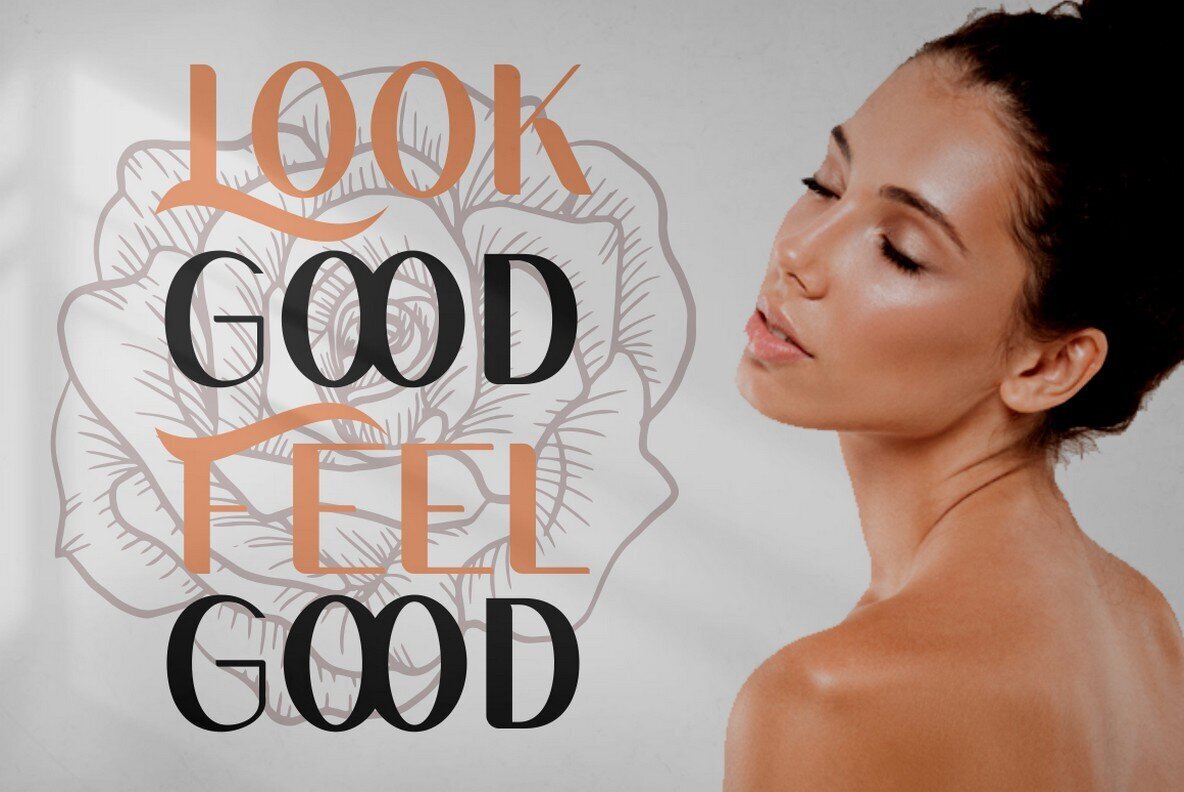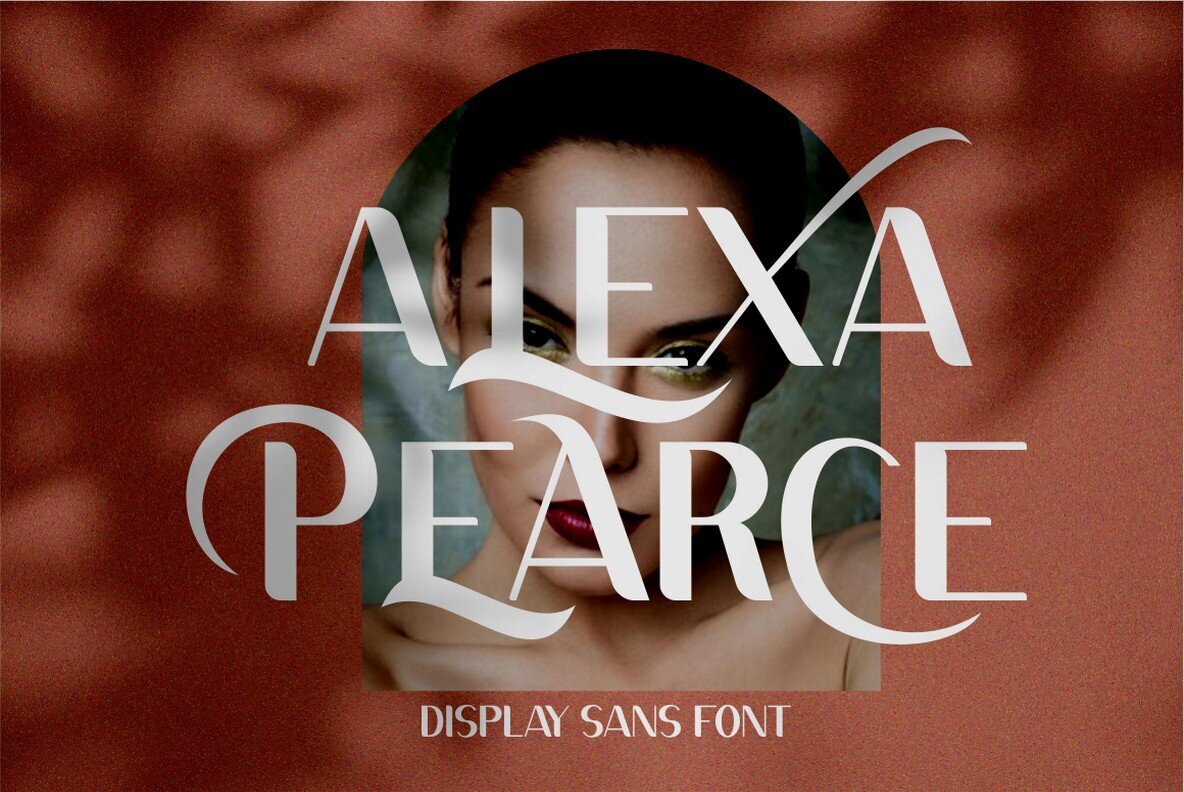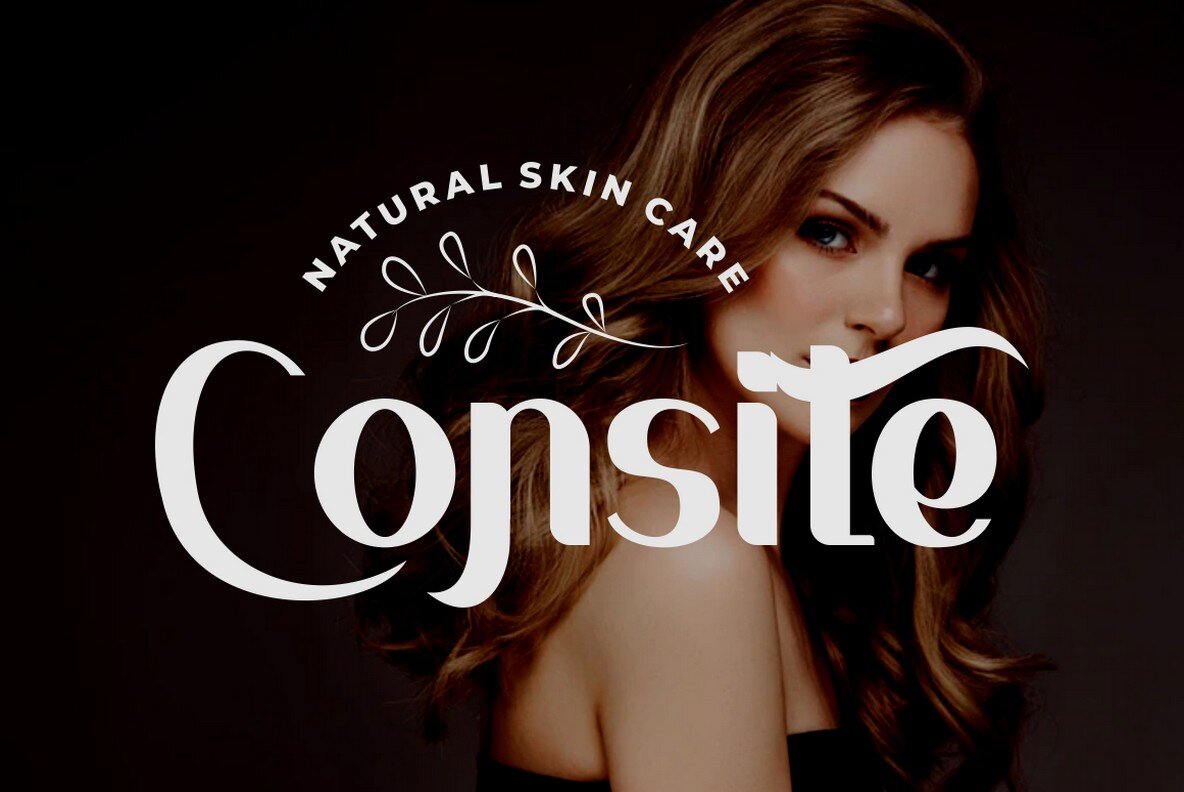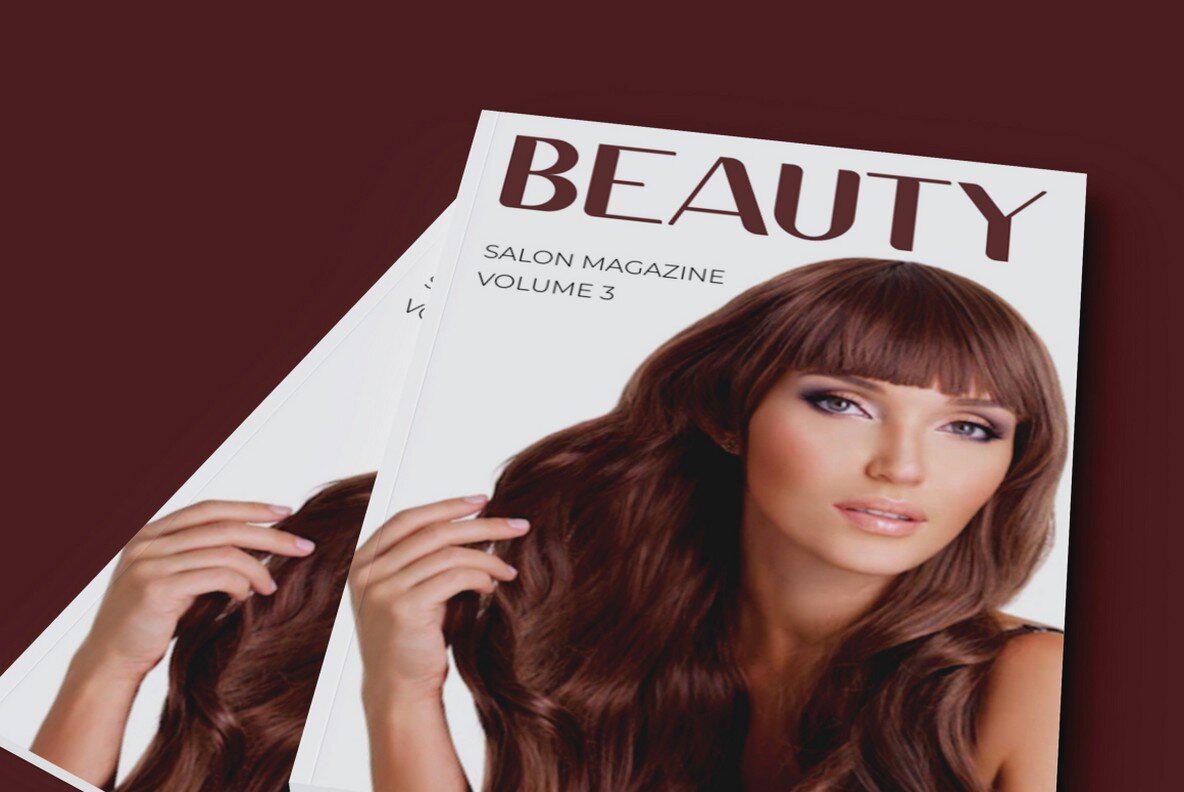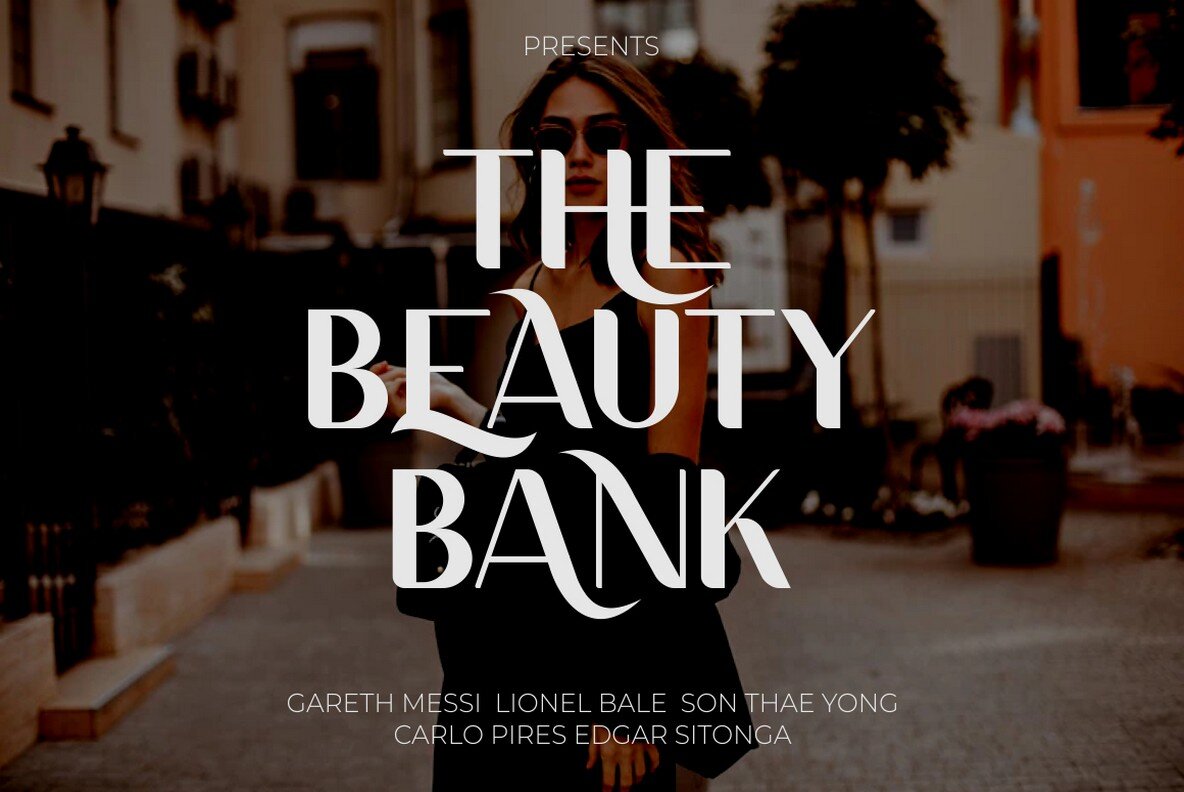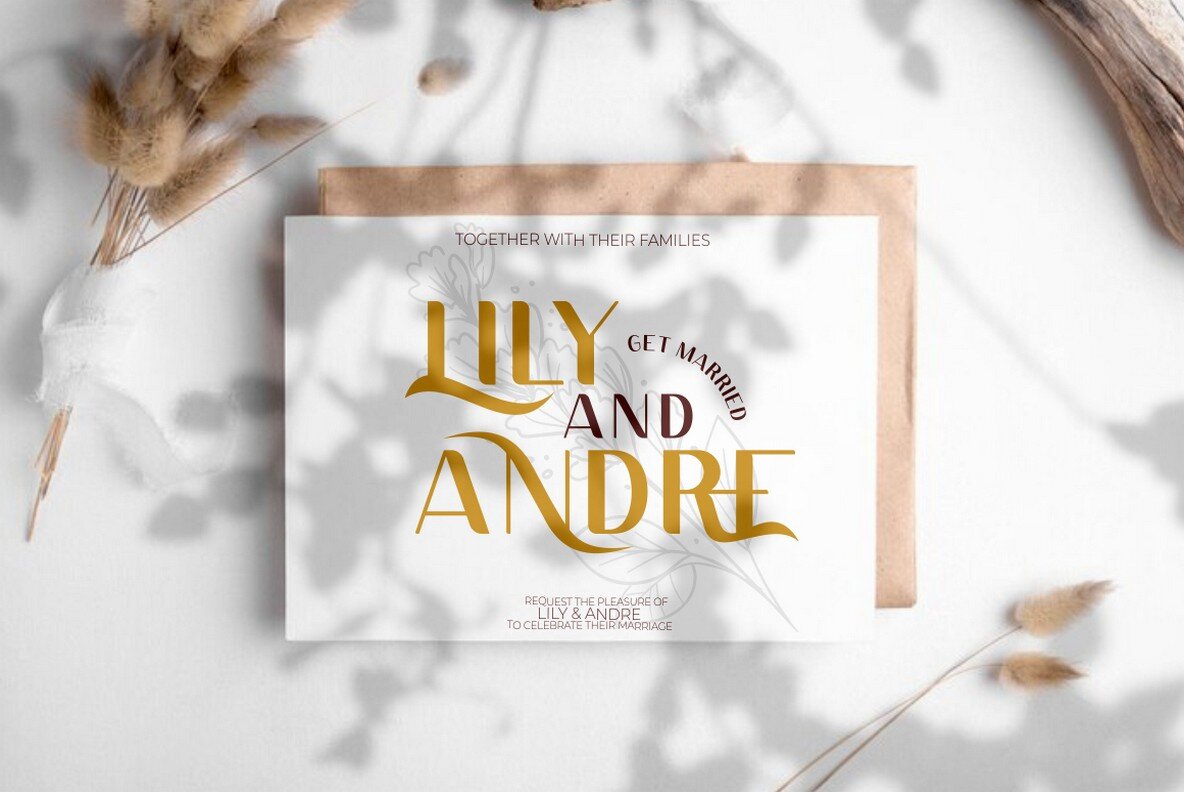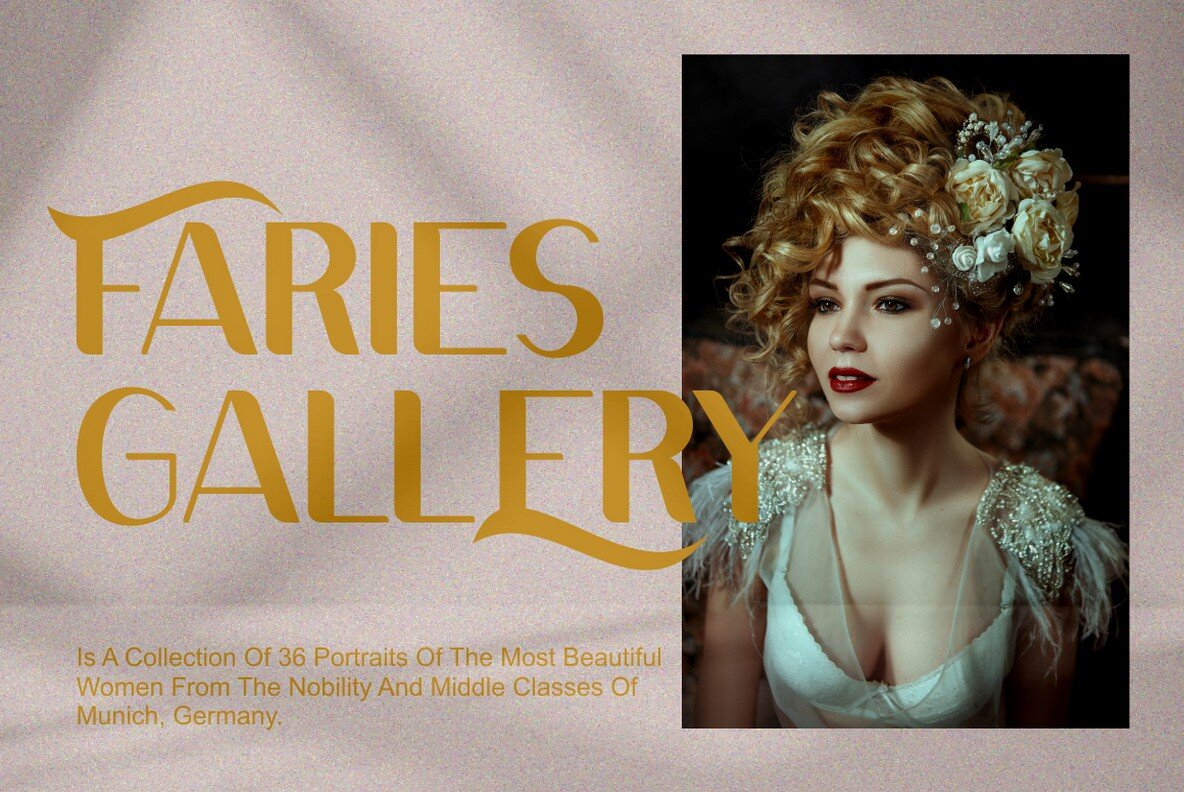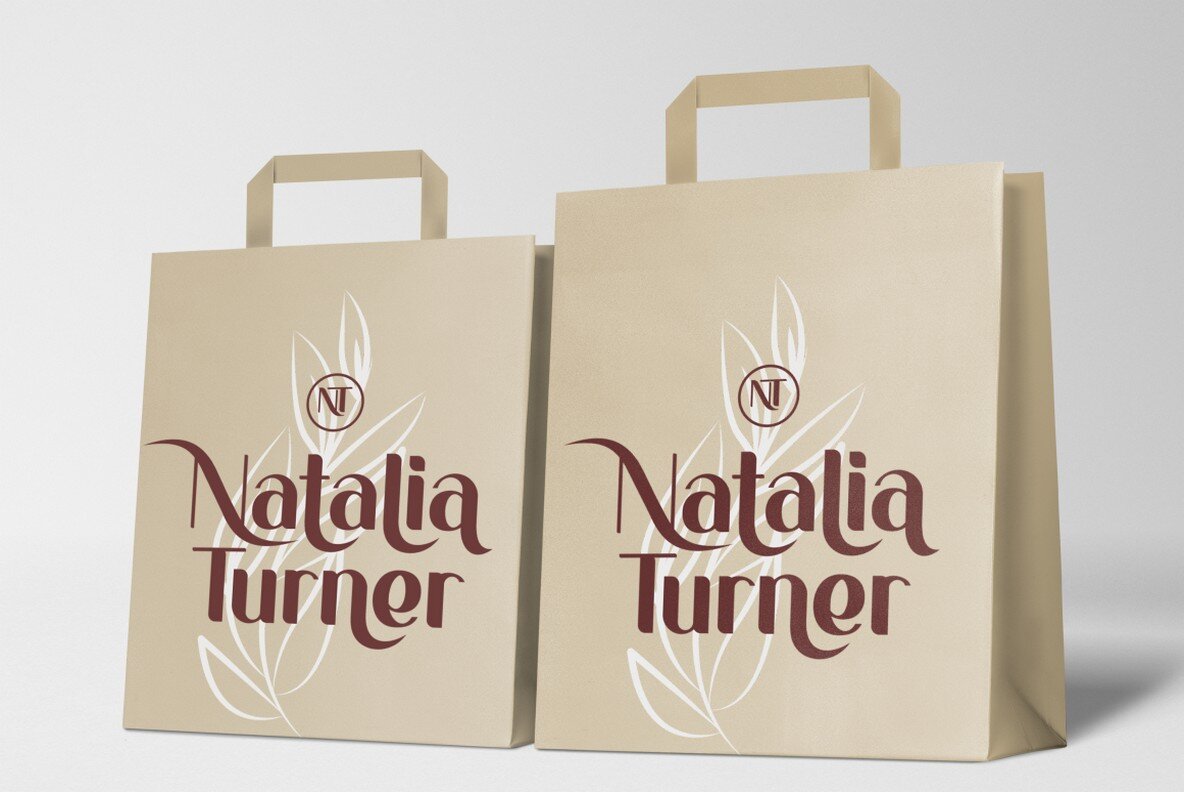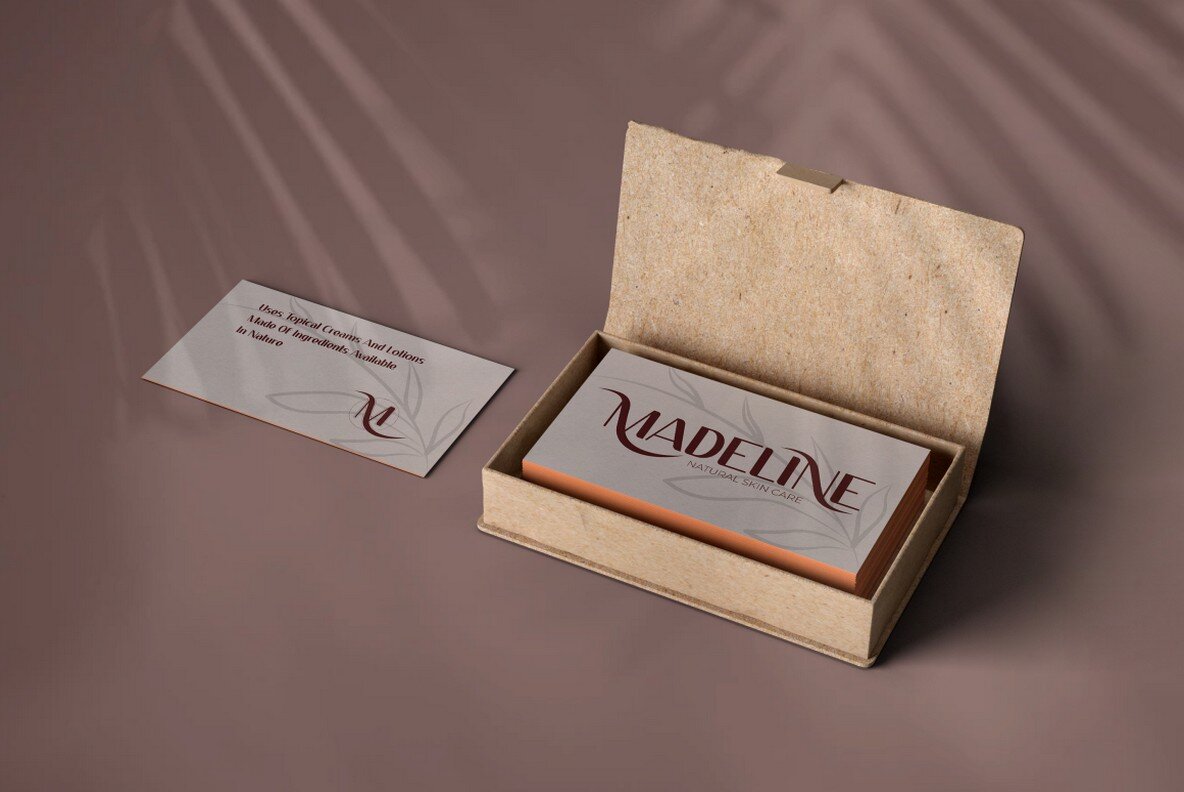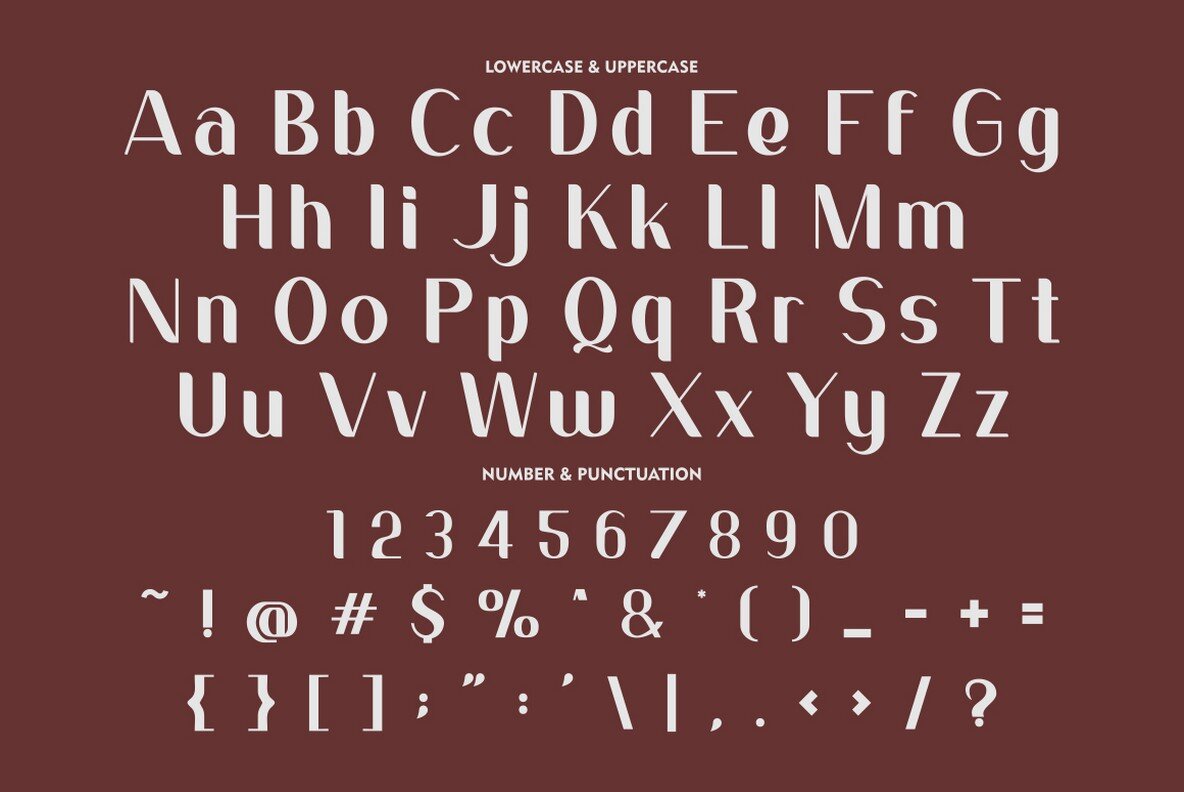
Sans Fierro Font
Sans Fierro Regular
Sans Fierro Texture
Discover the intricacies of Sans Fierro, a display sans font inspired by the elegance of classic book covers, now reimagined with a modern twist. With a comprehensive set of 534 glyphs and an impressive array of 359 alternatives, this font offers endless possibilities for creative display combinations, enhancing the uniqueness of your lettering projects. Designed with OpenType features, Sans Fierro provides a wealth of alternate styles and end swashes to add flair to any typography. Its multilingual support ensures your designs resonate across diverse audiences. Recommended for projects such as logotypes, headings, covers, posters, logos, quotes, product packaging, headers, merchandise, social media, and greeting cards, Sans Fierro demonstrates its versatility in a multitude of applications.Sans Fierro: A Clash of Classic and Contemporary